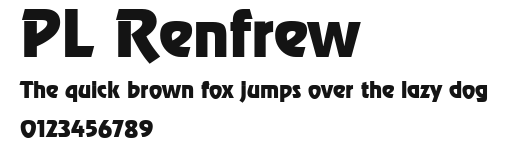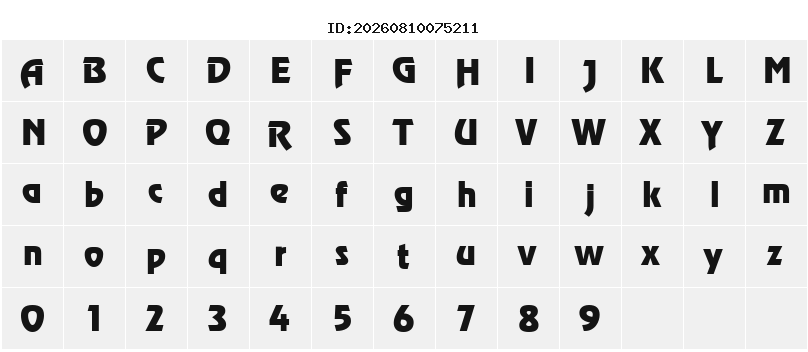
About PL Renfrew.ttf
PL Renfrew.ttf is a modern, elegant sans-serif font designed for ultimate readability and visual harmony. Perfect for branding, headlines, web design, and print materials.